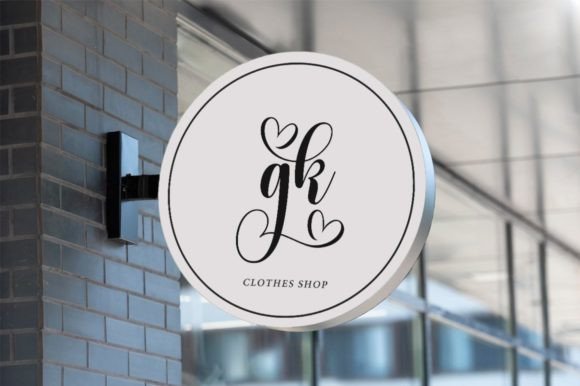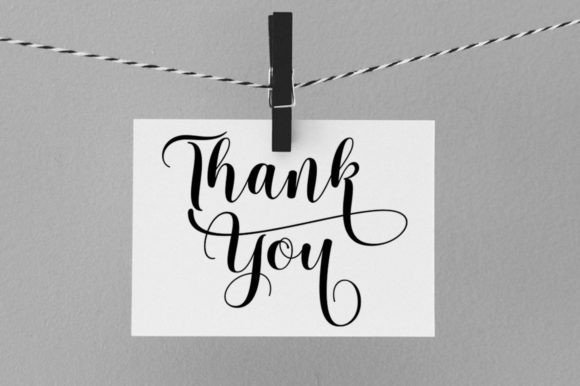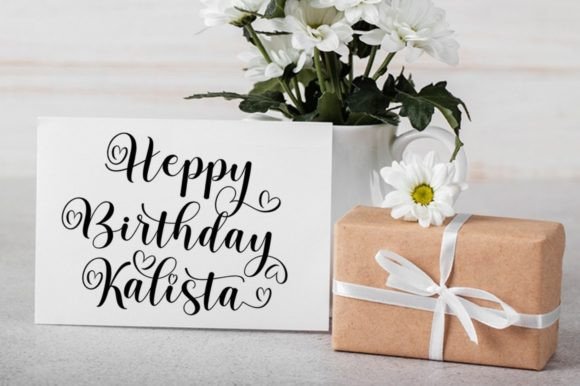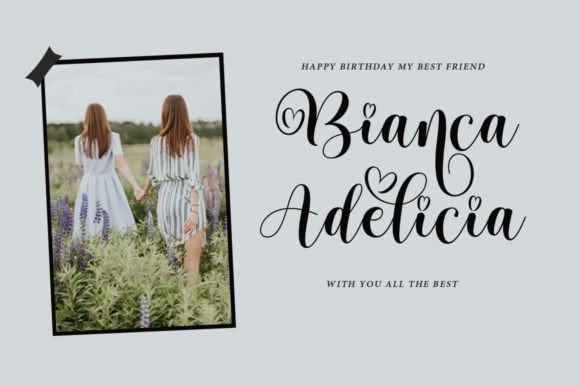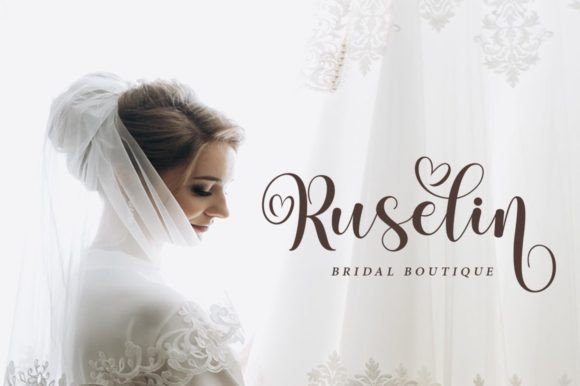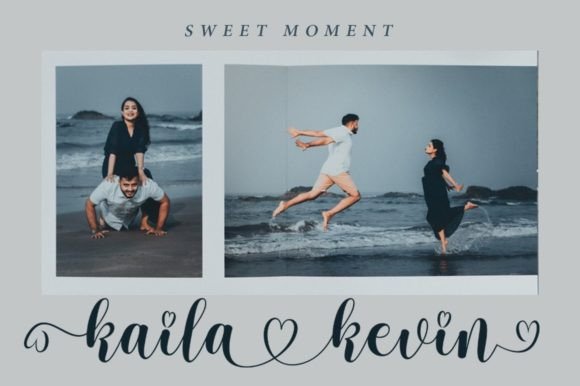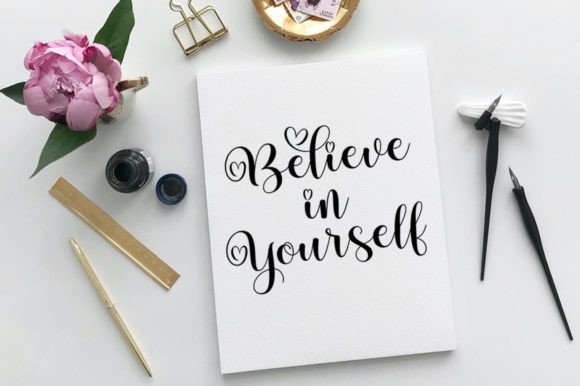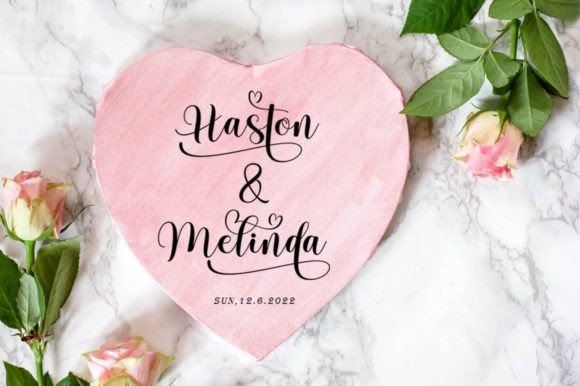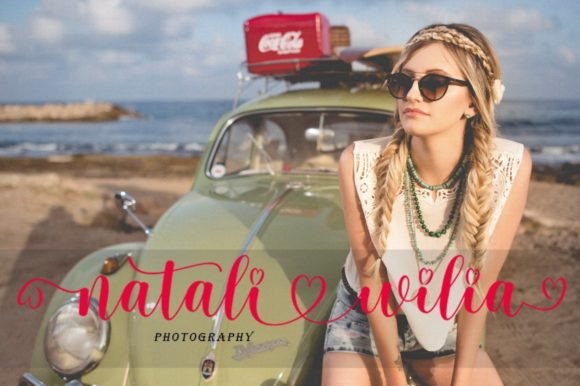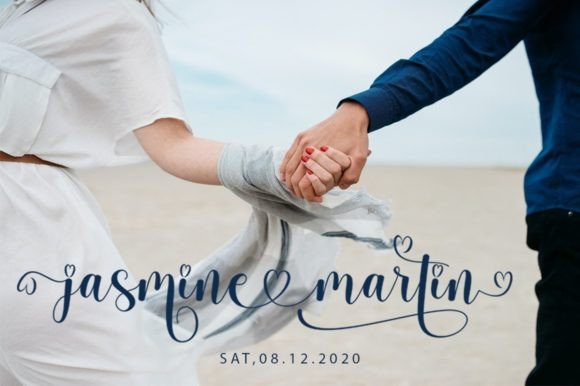
Kaila Kevin Font
About Kaila Kevin Font
“Kaila Kevin” is a font that embodies loveliness and adorableness, designed in a script style that exudes charm and sweetness. Its gentle and delightful appearance makes it a perfect choice for a wide variety of design projects. With its joyful and romantic vibe, “Kaila Kevin” has the ability to enhance the visual appeal of your projects, adding a touch of joy and romance to every creation.
**Adorable Script Elegance**: “Kaila Kevin” stands out with its adorable script elegance, giving it a playful and endearing touch. The natural flow of the letters and the whimsical curves create a soft and inviting atmosphere, making it a delightful choice for various design applications.
**Versatility in Design**: This font’s versatility shines through as it complements a variety of design ideas. Whether you’re working on wedding invitations, love letters, greeting cards, or any other creative project, “Kaila Kevin” adapts seamlessly, enhancing the overall aesthetics with its lovely and adorable appearance.
**Gorgeous and Charming**: “Kaila Kevin” adds a touch of gorgeousness and charm to your designs. Its elegant letterforms and romantic charm make it visually appealing, capturing the attention of viewers. The font’s beauty lies in its simplicity and authenticity, creating a timeless and enchanting appeal.
**Joyful and Romantic Touch**: The joyful and romantic essence of “Kaila Kevin” makes it an excellent choice for projects that aim to convey positive emotions and heartfelt messages. Its presence adds a sense of love and tenderness, transforming ordinary text into a poetic and emotional expression.
In summary, “Kaila Kevin” is more than just a font; it’s a source of charm and romance. Its lovely and adorable script style brings a touch of joy and love to your projects, making them visually stunning and emotionally resonant. Whether used in wedding stationery, love notes, or any creative endeavor, “Kaila Kevin” creates a magical atmosphere, evoking feelings of romance and happiness. Let “Kaila Kevin” be the elegant storyteller that adds a delightful and romantic touch to each of your designs.